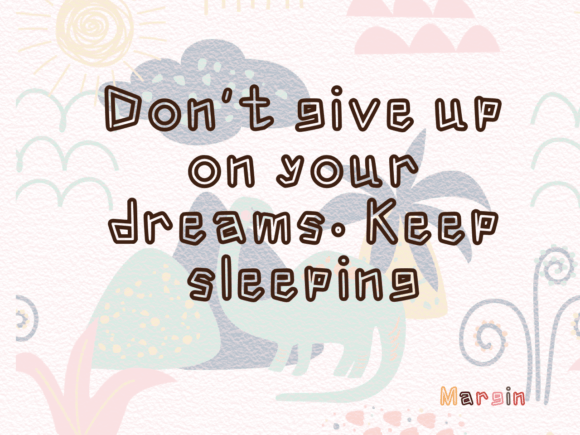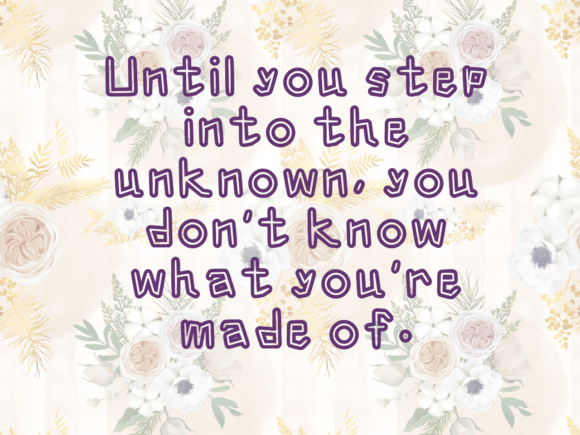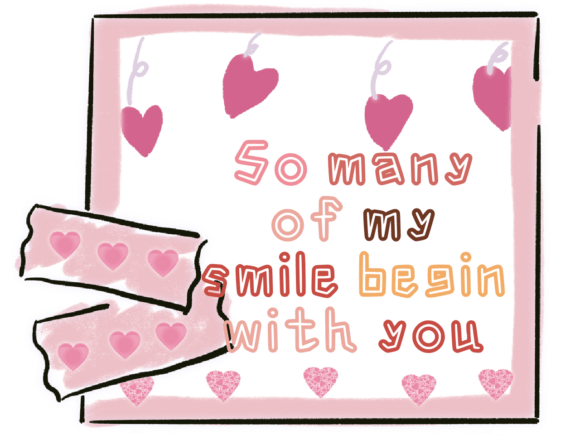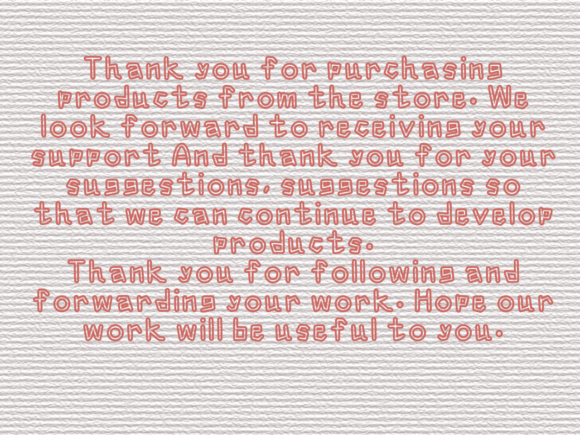
Margin Font
About Margin Font
Margin is a versatile font that brings a variety of unique characteristics to your typography, allowing you to create distinctive letters that stand out in diverse design projects. Whether you’re crafting heartfelt greeting cards, elegant wedding invitations, or any other creative endeavor, this font offers a creative edge, making your letters look refreshingly different.
The diverse features of Margin open up a realm of possibilities for customization. Its uniqueness lies in its ability to add flair to your letters, providing a personalized touch to your designs. Use this font to infuse creativity into your projects and make a lasting impression on your audience.
Designing greeting cards with Margin allows you to impart a sense of individuality and creativity. The font’s diverse characteristics can adapt to various themes, making it an ideal choice for expressing different moods and sentiments. Whether you’re aiming for a playful or sophisticated tone, Margin empowers you to create letters that resonate with the intended emotions.
For wedding cards, Margin brings an elegant and distinctive touch. The font’s versatility allows you to explore different styles and aesthetics, ensuring that your invitations stand out with a touch of sophistication and uniqueness. Customize the lettering to match the theme of the wedding, creating a visual experience that is truly one-of-a-kind.
In conclusion, Margin is not just a font; it’s a creative tool that empowers you to transform your letters into unique and captivating works of art. Whether for greeting cards, wedding invitations, or any other design project, let Margin be the key to making your letters look different, leaving a lasting impression on those who encounter your creative endeavors.